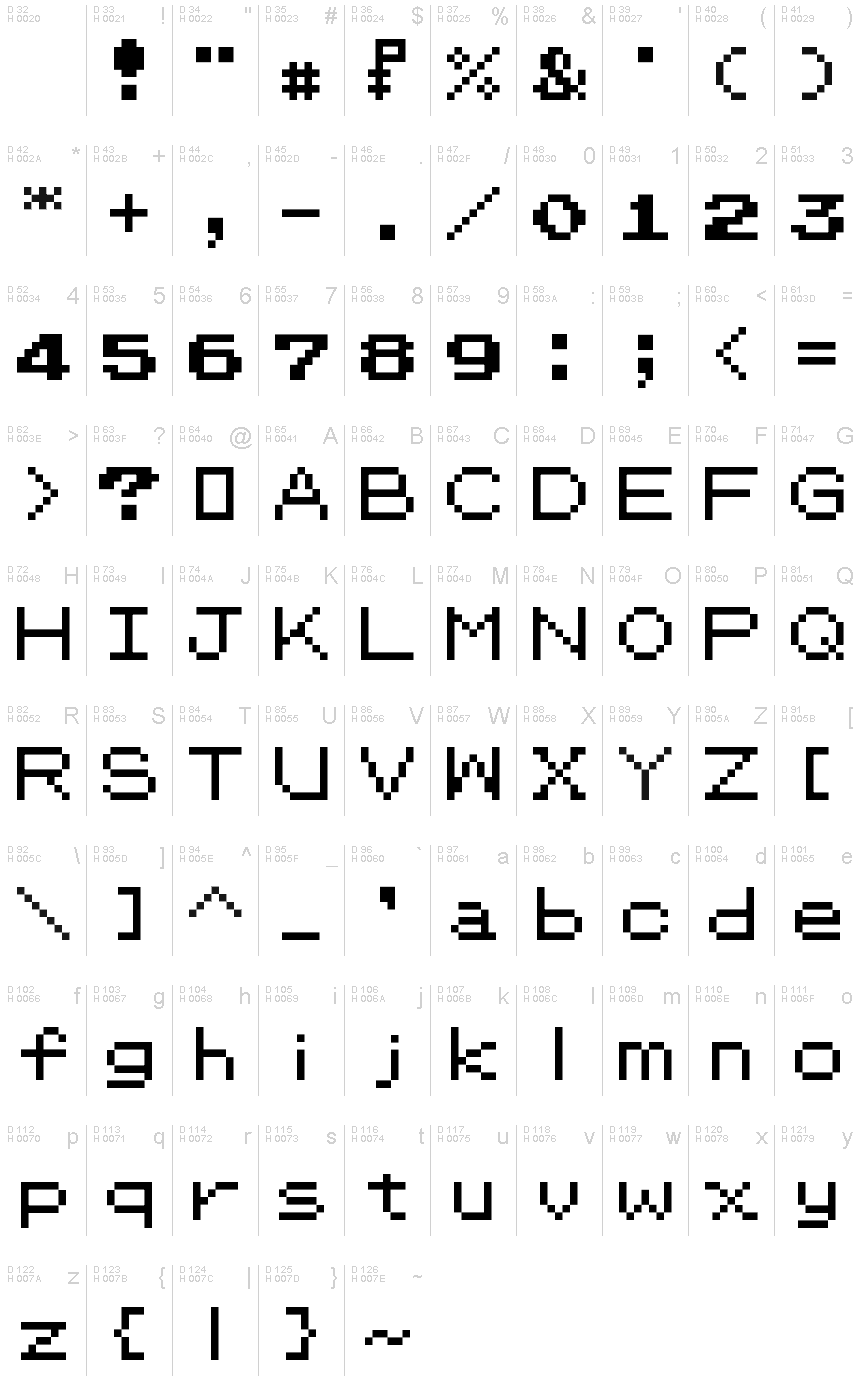
Pokemon Classic Regular
Font used in the first and second generation Pokemon games, Credits to Sarial84 on DeviantART for the Cyrillic alphabet and others for the Greek alphabet, more glyphs added but most are custom.
Designer description: Font used in the first and second generation Pokemon games, Credits to Sarial84 on DeviantART for the Cyrillic alphabet and others for the Greek alphabet.